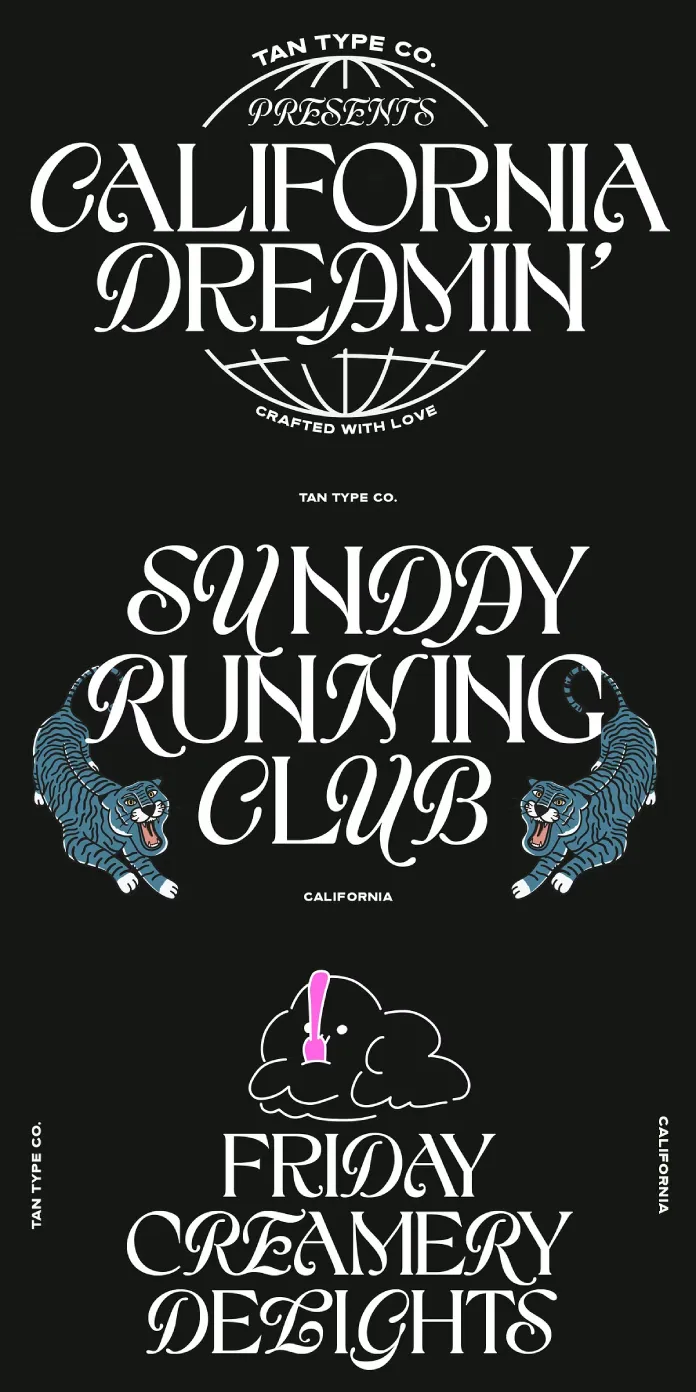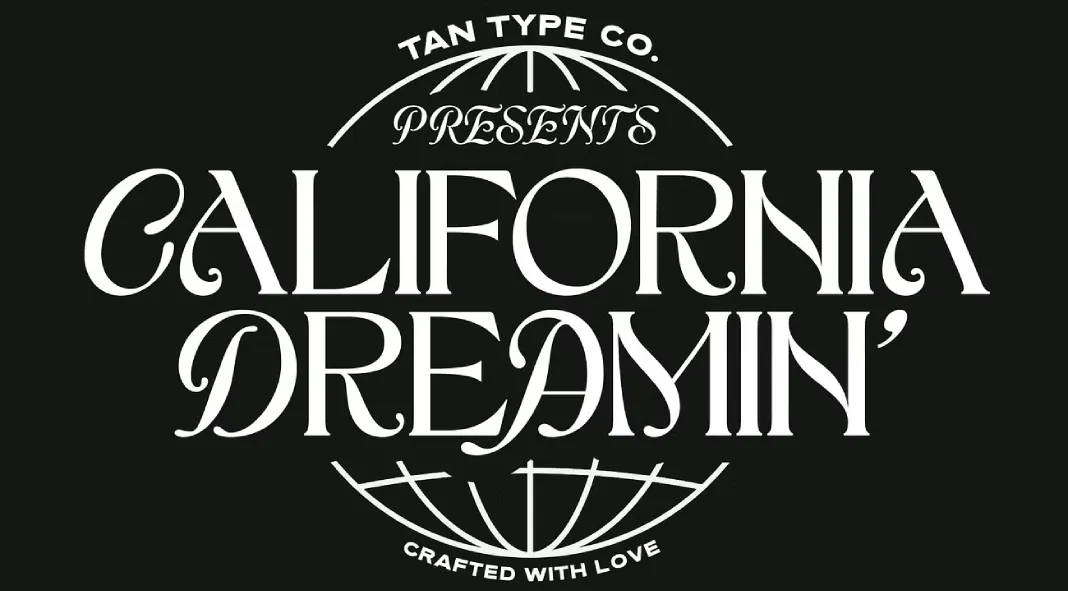
TAN California is a Modern Serif with Timeless Elegance
The TAN California font by TanType embodies a harmonious blend of chic modernity with subtle nods to classical serif tradition. Available in OTF, WOFF, and WOFF2 formats, the font is versatile, supporting multiple languages, making it a practical yet stylish choice for designers seeking sophistication with a contemporary edge.
Aesthetic and Style
TAN California’s serif design stands out for its juxtaposition of traditional serif structure with sleek, modern lines. The carefully crafted letterforms balance boldness with grace, making the typeface feel at once grounded in classic typography but fully equipped for contemporary design trends. Its stylish oblique option further enhances this aesthetic, offering a natural slant that feels dynamic and sophisticated, without veering into the excessive slant of italic fonts.
Each letter is characterized by its well-proportioned curves and ornate flourishes, adding a sense of luxury and refinement. The tall, confident strokes convey authority, while the curves—often soft and slightly exaggerated—lend a playful, approachable charm. The balance between hard geometric edges and the organic flow of the serifs is a signature aspect, resulting in a font that is highly adaptable for branding, editorial work, and headlines.
Versatility and Functionality
One of TAN California’s major strengths is its multilingual support, which ensures global accessibility and versatility for international design projects. Its availability in both OTF and WOFF formats means it can be easily integrated into web and print projects alike. The additional WOFF2 format further optimizes web performance, ensuring quick load times and preserving design integrity across digital platforms.
The font’s versatility lies not just in its format options, but in its potential applications. Its combination of modernity with a hint of classicism makes it equally effective in fashion branding, editorial layouts, and luxury product packaging. Its ability to scale without losing elegance and clarity is particularly noteworthy, ensuring it performs well across various sizes—from large display headers to smaller body text.
Design Applications and Context
TAN California’s distinct yet flexible style fits perfectly into today’s design landscape, where designers are increasingly looking for typefaces that marry the old with the new. Its timeless elegance makes it ideal for branding projects that require sophistication, such as fashion labels, upscale hospitality ventures, and luxury goods. Moreover, its modern flair ensures it would not look out of place in tech branding, progressive start-up logos, or minimalist editorial designs.
The font’s oblique variant is a standout option for those seeking a more energetic, slightly unconventional design choice. It offers subtle movement without the excessive slant that often diminishes readability. This option would work beautifully in dynamic website headers, magazine mastheads, or event posters where impact is key.
TAN California by TanType is a masterful font that successfully bridges the gap between traditional serif elegance and modern typographic trends. Its polished aesthetic, paired with excellent functionality across multiple formats and languages, makes it a top-tier choice for designers looking to elevate their work with a stylish and adaptable typeface. Whether used for branding, digital applications, or print, TAN California delivers both visual impact and professional flexibility.
As the world of typography continues to evolve, TAN California stands as a testament to the enduring appeal of serif fonts, reimagined for the contemporary designer’s toolkit.